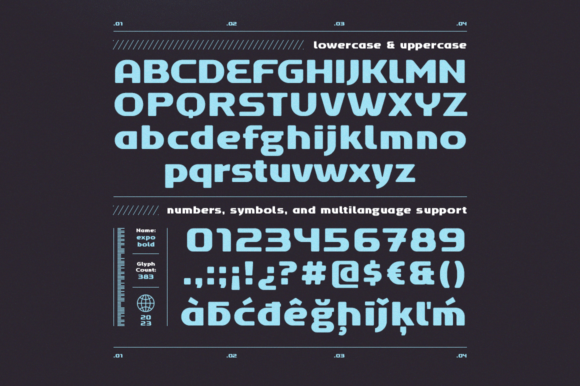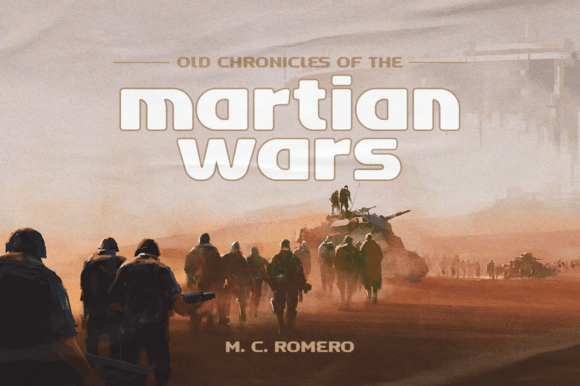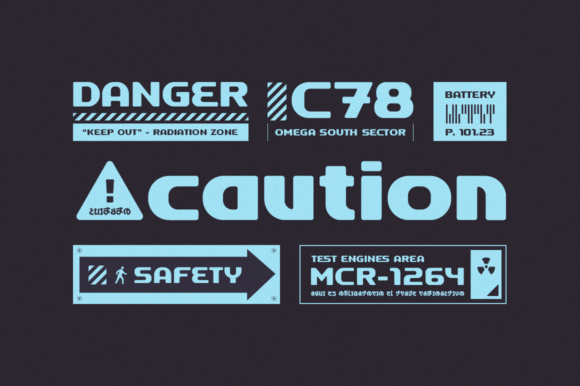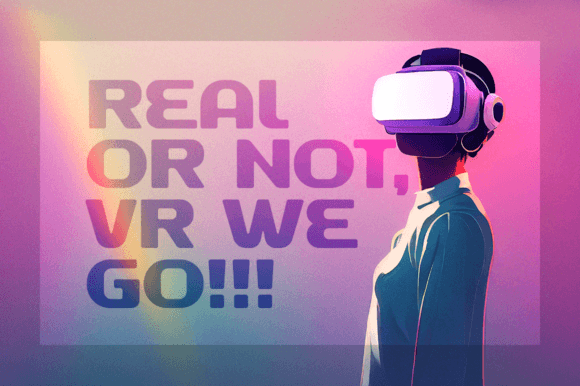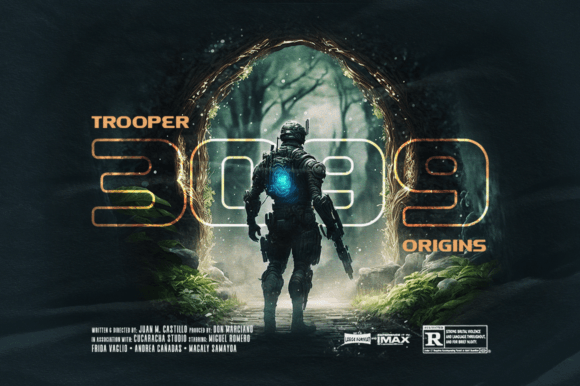
Introduction to Expo Font
Expo is a futuristic sci-fi display font created with a fluid rounded style to evoke a retro aesthetic in a modern feel, the typeface goal is to modernize the retro trend with a fresh take.
This font was particularly crafted for those who need a distinctive and sci-fi look to their designs .
Key Features of Expo Font